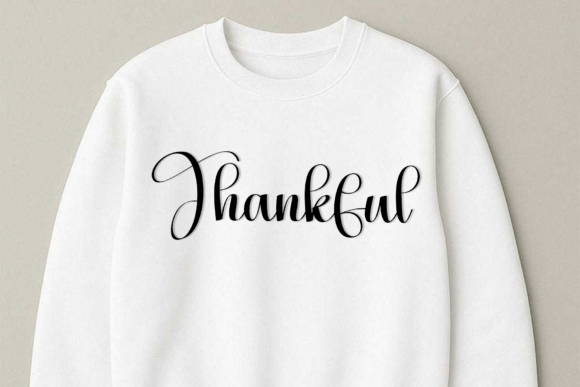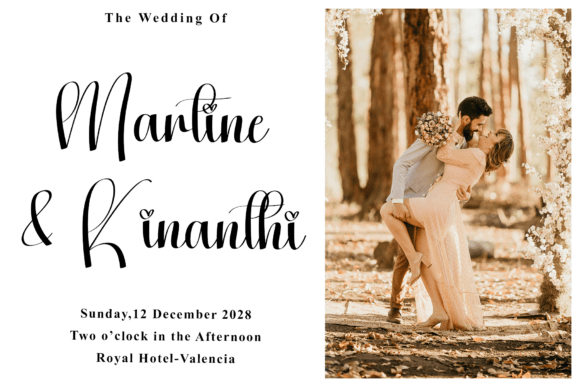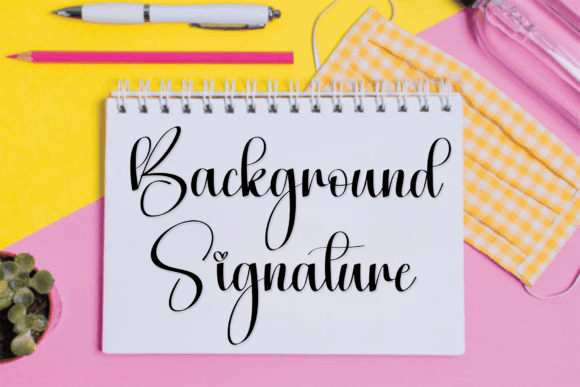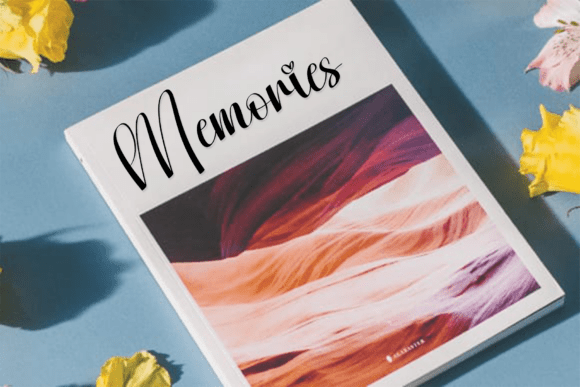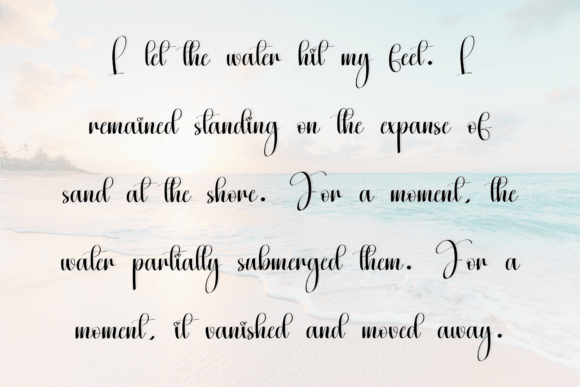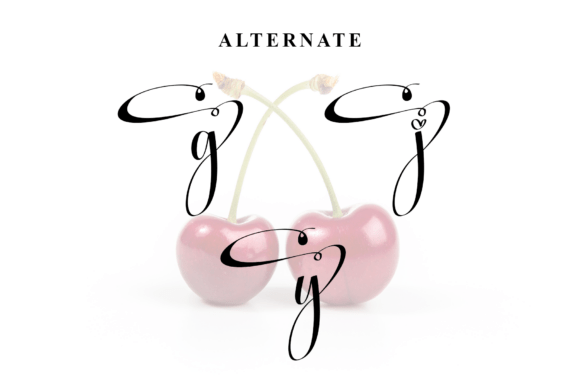
Add a Dash of Sweetness and Elegance with the Cherry Font
In the world of typography, few fonts manage to strike a balance between whimsy and sophistication as effortlessly as the Cherry font. This modern handwritten collection typeface is a masterclass in elegance, characterized by its dramatic, sweeping swashes and intricate flourishes that elevate every word into a piece of bespoke art. Whether you’re a designer looking to make a statement or a crafter seeking to add a touch of luxury to your project, the Cherry font is an exceptional choice.
The Power of Display Typography
The Cherry typeface is a display powerhouse, designed to capture attention with its luxurious curves and professional execution. Its dramatic swashes and flourishes are not just aesthetic additions; they are carefully crafted to create a sense of movement and flow, drawing the eye through the text with elegance and poise. This makes the Cherry font particularly effective in environments where aesthetics are paramount, such as high-end branding, advertising, and editorial design.
Perfect for Luxury Branding and Design
The Cherry font thrives in applications where a sense of luxury, femininity, and style is desired. It’s the ultimate choice for branding that needs to feel expensive and undeniably stylish. Imagine using it for high-end beauty packaging, gourmet food labels, or elegant event invitations. The font’s ability to add a touch of sophistication and glamour to any project makes it a versatile tool in the hands of designers and crafters.
Creating Visual Harmony with Cherry
One of the key strengths of the Cherry font is its ability to be both a focal point and a complementary element in a design. Its flourishes can be used to frame a design, creating a sense of movement and grace that guides the viewer’s eye through the composition. When paired with high-contrast serif fonts, the Cherry typeface creates a sophisticated typographic hierarchy that is both visually appealing and highly effective in communicating a message.
Applications of the Cherry Font
The versatility of the Cherry font means it can be used in a wide range of projects. Here are a few ideas to get you started:
- Luxury Bakery Logo: Use the Cherry font to create a logo for a luxury bakery or patisserie. The font’s elegant swashes and flourishes evoke a sense of high-end quality and sophistication, perfect for branding gourmet food products.
- Fashion Editorial: Add a touch of glamour to your fashion editorial with the Cherry font. Its dramatic and sweeping curves are perfect for headlines and titles, adding a level of sophistication and style to your layout.
- Elegant Event Invitations: Make your event invitations stand out with the Cherry font. Whether it’s a wedding, a gala, or a high-end corporate event, this font adds a level of elegance and refinement that’s sure to impress.
- High-End Beauty Packaging: The Cherry font is also ideal for high-end beauty packaging. Its luxurious feel and sophisticated look make it perfect for branding premium beauty products.
Tips for Using the Cherry Font
To get the most out of the Cherry font, consider the following tips:
- Pair with Contrasting Fonts: For a sophisticated look, pair the Cherry font with high-contrast serif fonts. This creates a visually appealing typographic hierarchy that adds depth and interest to your design.
- Use Sparingly: Given its dramatic swashes and flourishes, the Cherry font is best used sparingly. It can quickly become overwhelming if overused, so consider using it for headlines or key messaging.
- Experiment with Flourishes: Don’t be afraid to experiment with the font’s flourishes. They can be used to create frames, add movement to your design, or simply to add a touch of elegance.
The Cherry font is a stunning example of modern typography, offering a unique blend of whimsy, elegance, and sophistication. Its dramatic swashes and intricate flourishes make it a standout choice for designers and crafters looking to add a touch of luxury and style to their projects. Whether you’re working on a high-end branding campaign, a fashion editorial, or simply looking for a font that makes a statement, the Cherry font is an exceptional choice. With its versatility, elegance, and undeniable charm, it’s sure to become a favorite in your typographic arsenal.